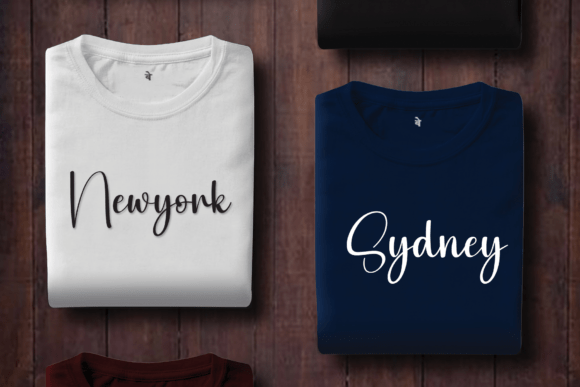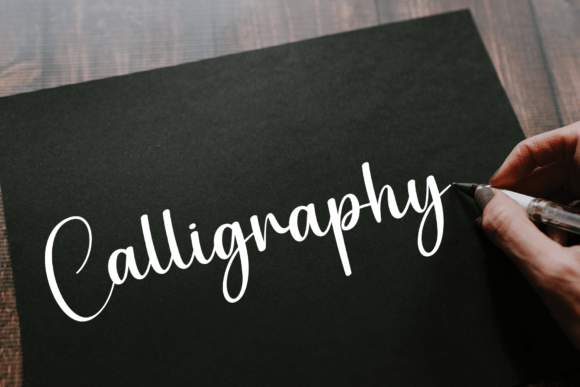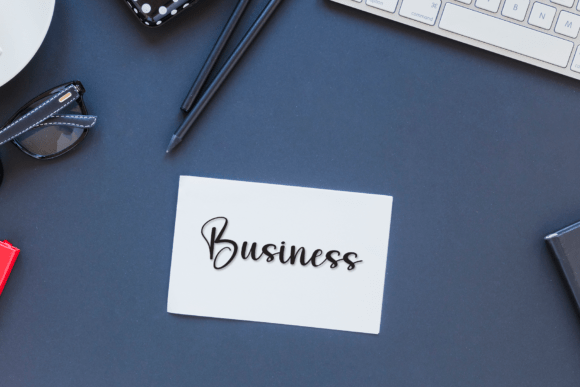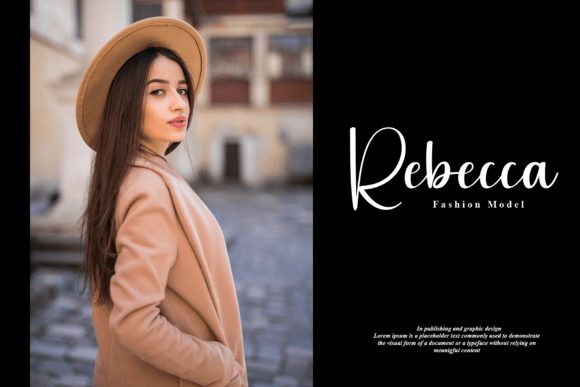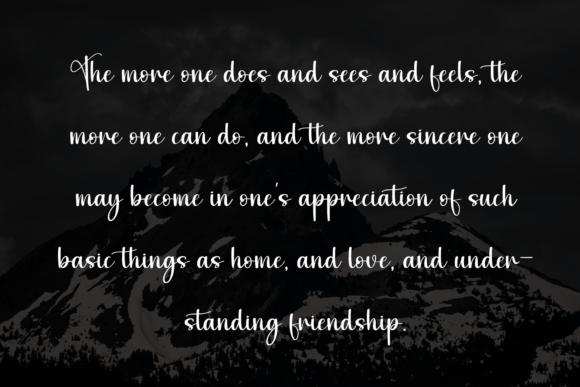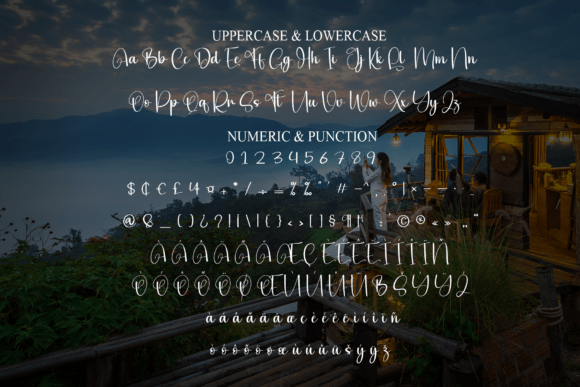
Cottage Font: Elevate Your Designs with a Touch of Elegance
Are you on the lookout for a font that adds a dash of charm and sophistication to your creative projects? Look no further than the Cottage Font, a beautifully crafted typeface designed to bring a touch of elegance to your designs. In this article, we’ll delve into the world of Cottage Font, exploring its features, benefits, and uses, as well as why it’s a must-have for designers and crafters alike.
What is Cottage Font?
Cottage Font is a stunning, hand-crafted typeface that boasts a unique and stylish aesthetic. Its elegant letters are perfect for a wide range of applications, from wall displays and wedding invitations to social media post logos, advertisements, product packaging, and more. With its beautiful, cursive script, Cottage Font is sure to add a touch of sophistication and whimsy to any design.
Key Features of Cottage Font
So, what sets Cottage Font apart from other fonts on the market? Here are just a few of its key features:
- Encoded PUA Character: This font features an encoded PUA character, allowing you to access it completely without the need for additional design software.
Uses for Cottage Font
So, what can you use Cottage Font for? The possibilities are endless! Here are just a few ideas to get you started:
- Wall displays: Add a touch of elegance to your wall displays with Cottage Font’s beautiful, cursive script.
- Wedding invitations: Make your wedding invitations truly special with Cottage Font’s romantic, whimsical aesthetic.
- Social media post logos: Elevate your social media presence with Cottage Font’s stylish, eye-catching letters.
- Advertisements: Use Cottage Font to add a touch of sophistication to your advertisements and make them stand out from the crowd.
- Product packaging: Add a touch of elegance to your product packaging with Cottage Font’s beautiful, cursive script.
- Product designs: Use Cottage Font to create stunning product designs that showcase your brand’s personality and style.
- Labels: Add a touch of whimsy to your labels with Cottage Font’s beautiful, cursive script.
- Photography: Use Cottage Font to add a touch of elegance to your photography, whether it’s for watermarks, captions, or more.
- Invitations: Make your invitations truly special with Cottage Font’s romantic, whimsical aesthetic.
- Stationery: Elevate your stationery with Cottage Font’s stylish, eye-catching letters.
Why Choose Cottage Font?
So, why should you choose Cottage Font for your next design project? Here are just a few reasons:
- Unique and stylish aesthetic: Cottage Font boasts a unique and stylish aesthetic that’s sure to make your designs stand out from the crowd.
- Elegant and sophisticated: This font adds a touch of elegance and sophistication to any design, making it perfect for a wide range of applications.